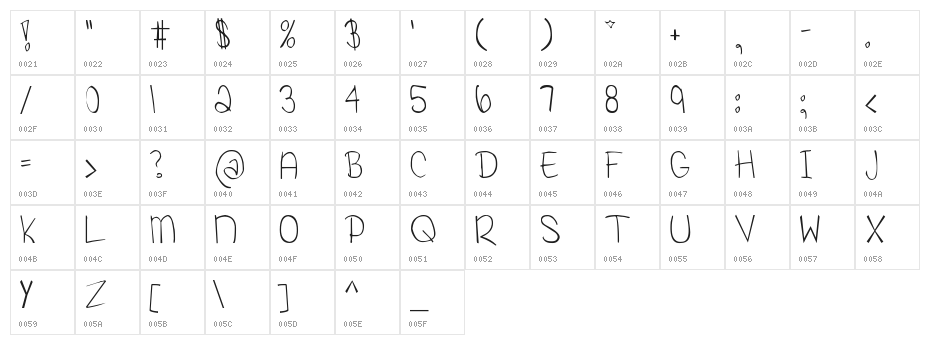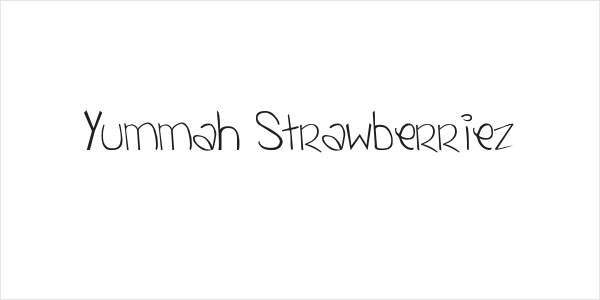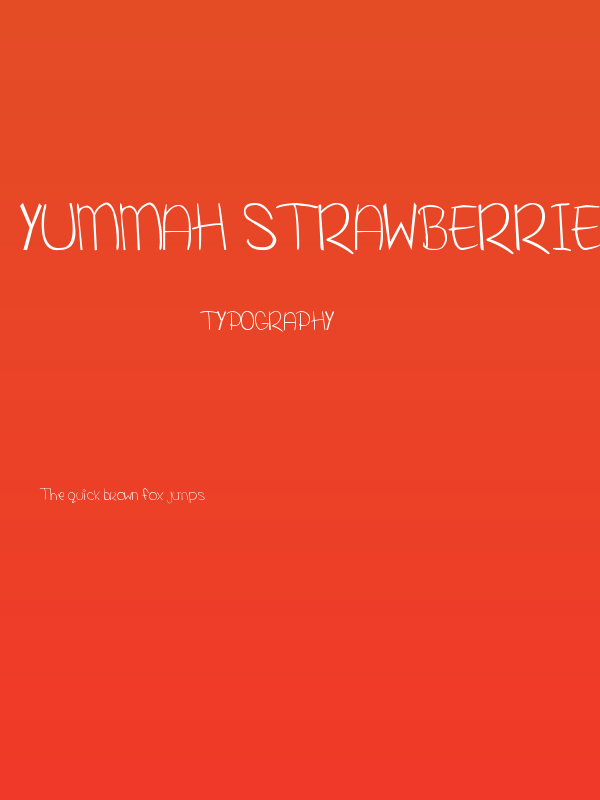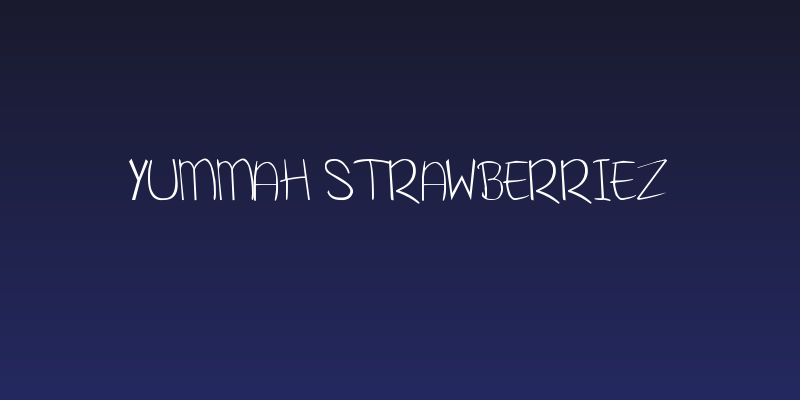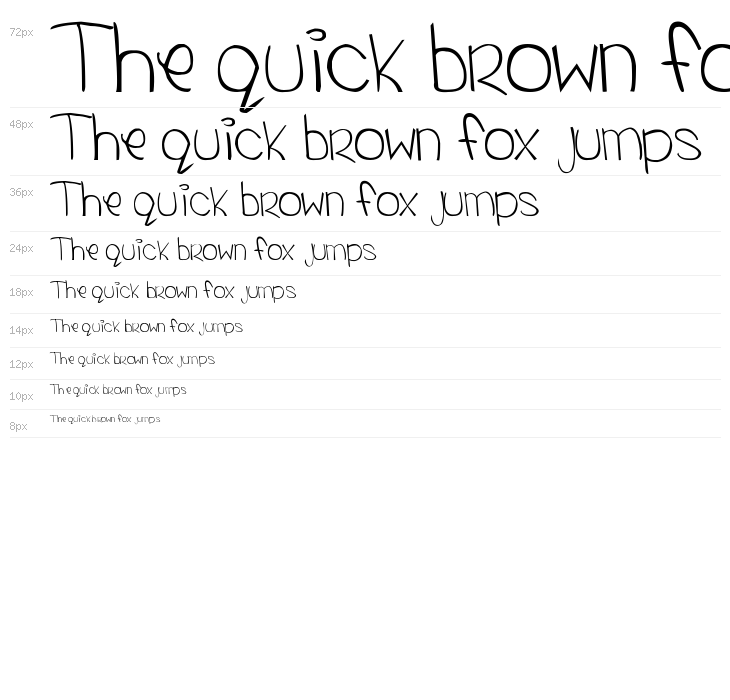
Yummah Strawberriez Font
Yummah Strawberriez Description
This playful and whimsical font features a hand-drawn, casual style with irregular strokes and a lively character. The letters are tall and slightly narrow, with a mix of rounded and angular forms that give it a unique, quirky appearance. The uppercase and lowercase letters maintain a consistent style, while the numerals and special characters add to its charm with their distinctive shapes. The overall look is informal and friendly, making it ideal for projects that require a touch of fun and creativity.
| Proposed Projects | Great for children's books, greeting cards, playful branding, and creative posters. |